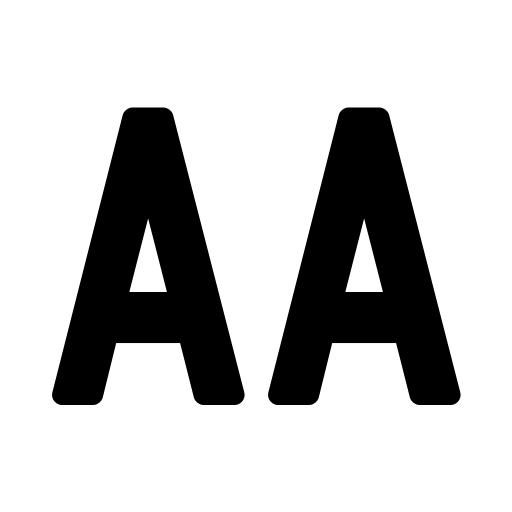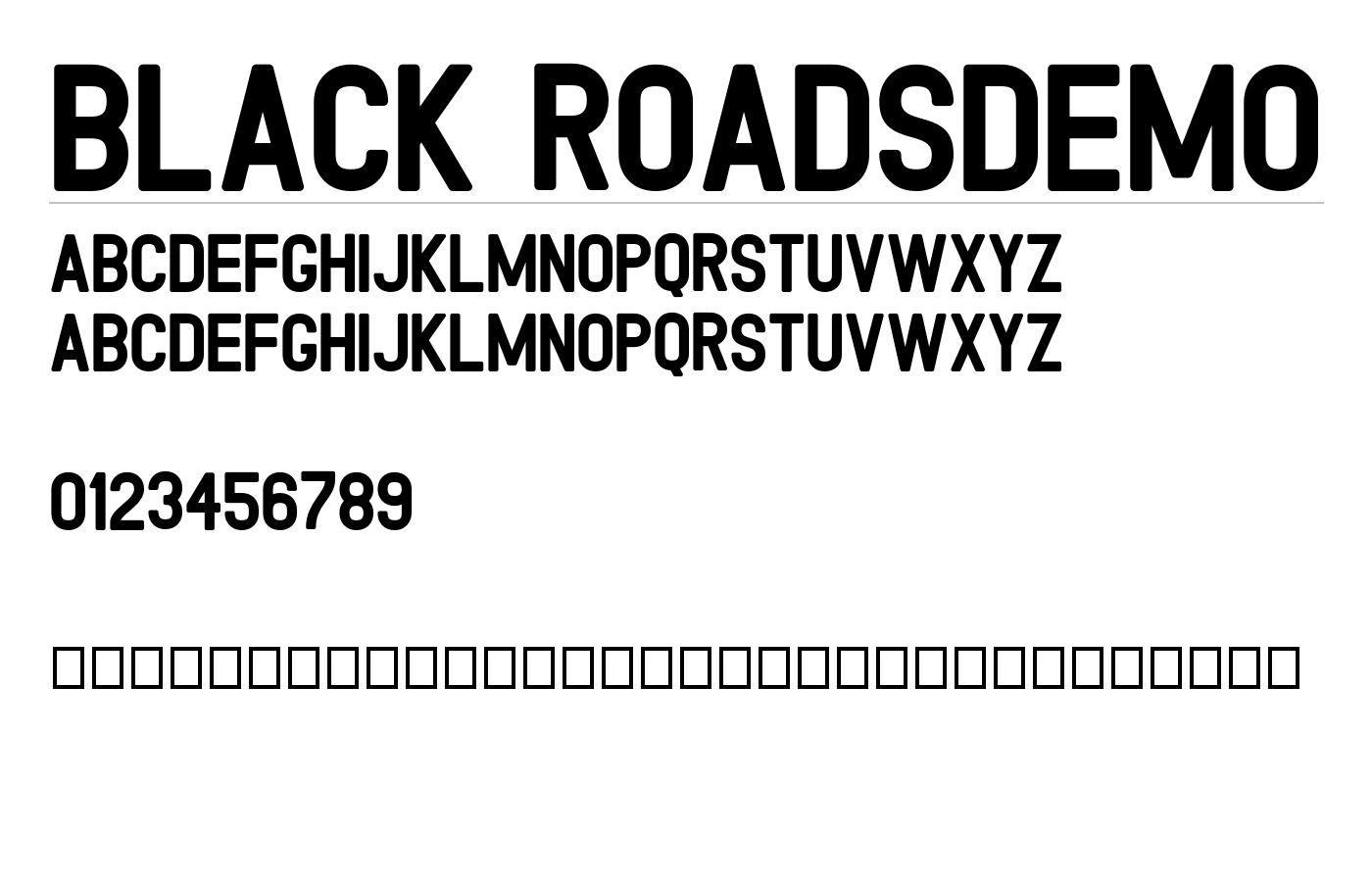
Black RoadsDEMO is a bold, condensed sans-serif font with a modern and clean appearance. Its tall, slightly rounded letterforms and uniform stroke weight give it a strong, assertive presence, making it ideal for impactful headlines, branding, and signage where clarity and a contemporary edge are important. This typeface conveys confidence and urban energy, perfect for use in advertising, editorial headlines, and digital interfaces that demand a straightforward yet stylish statement.
Black RoadsDEMO Font
About Black RoadsDEMO Font